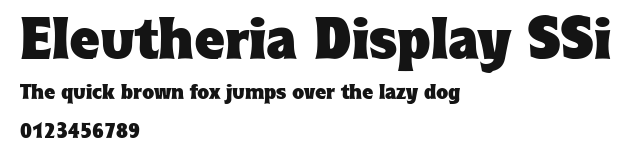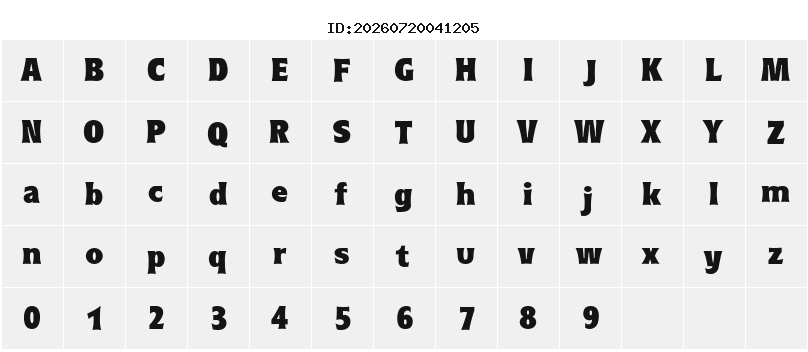
Eleutheria Display SSi Preview
About Eleutheria Display SSi.ttf
Eleutheria Display SSi.ttf is a modern, elegant sans-serif font designed for ultimate readability and visual harmony. Perfect for branding, headlines, web design, and print materials.